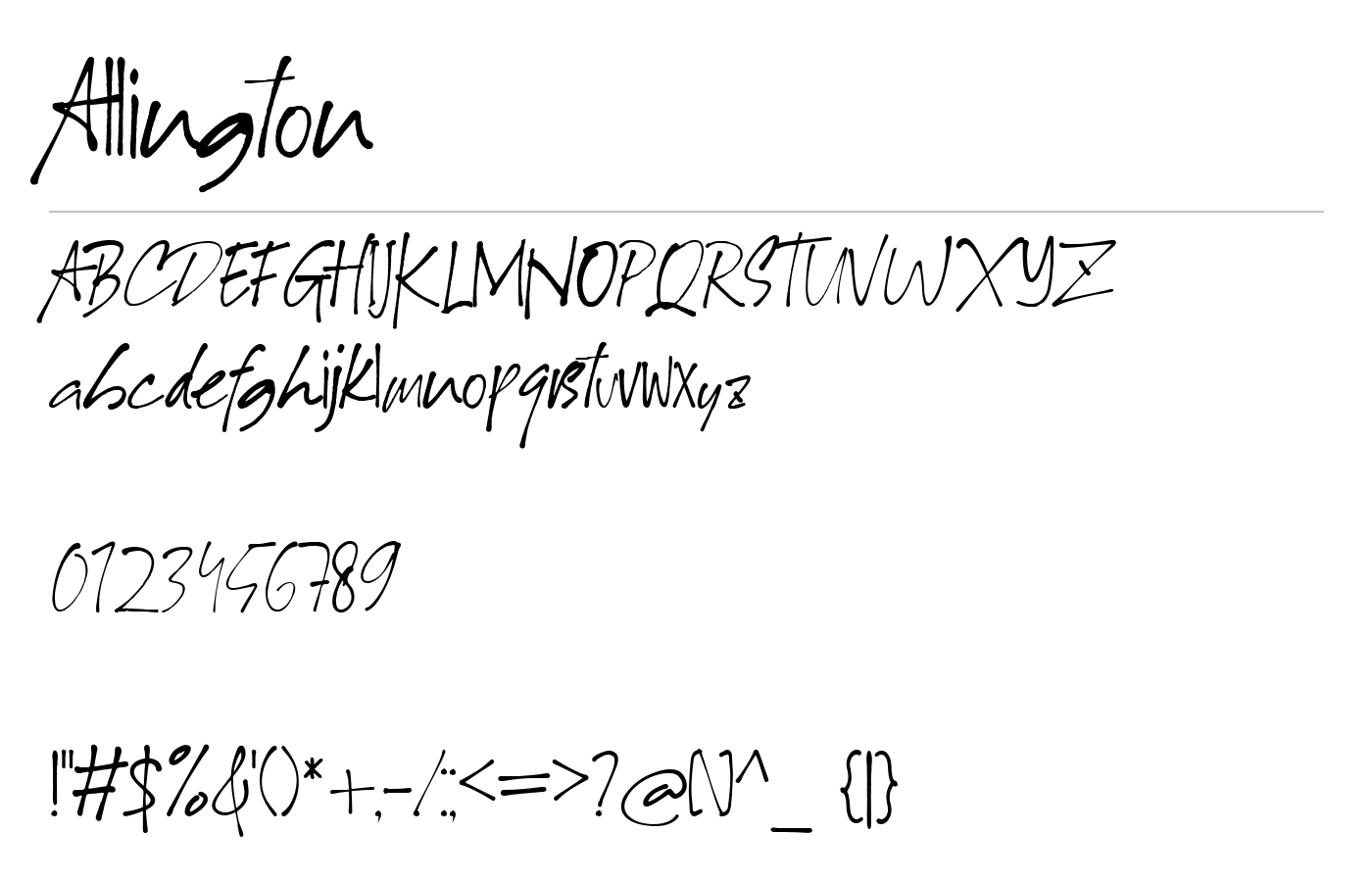
Allington is a lively, handwritten script font with a casual and artistic flair, featuring a narrow width and varied stroke weight that mimics natural pen strokes. Its energetic, irregular letterforms give it a playful yet personal touch, making it ideal for creative projects, informal branding, and designs that aim to feel approachable and unique. This font works well for logos, posters, and social media graphics where a hand-crafted, expressive style is desired.
Allington Font
About Allington Font